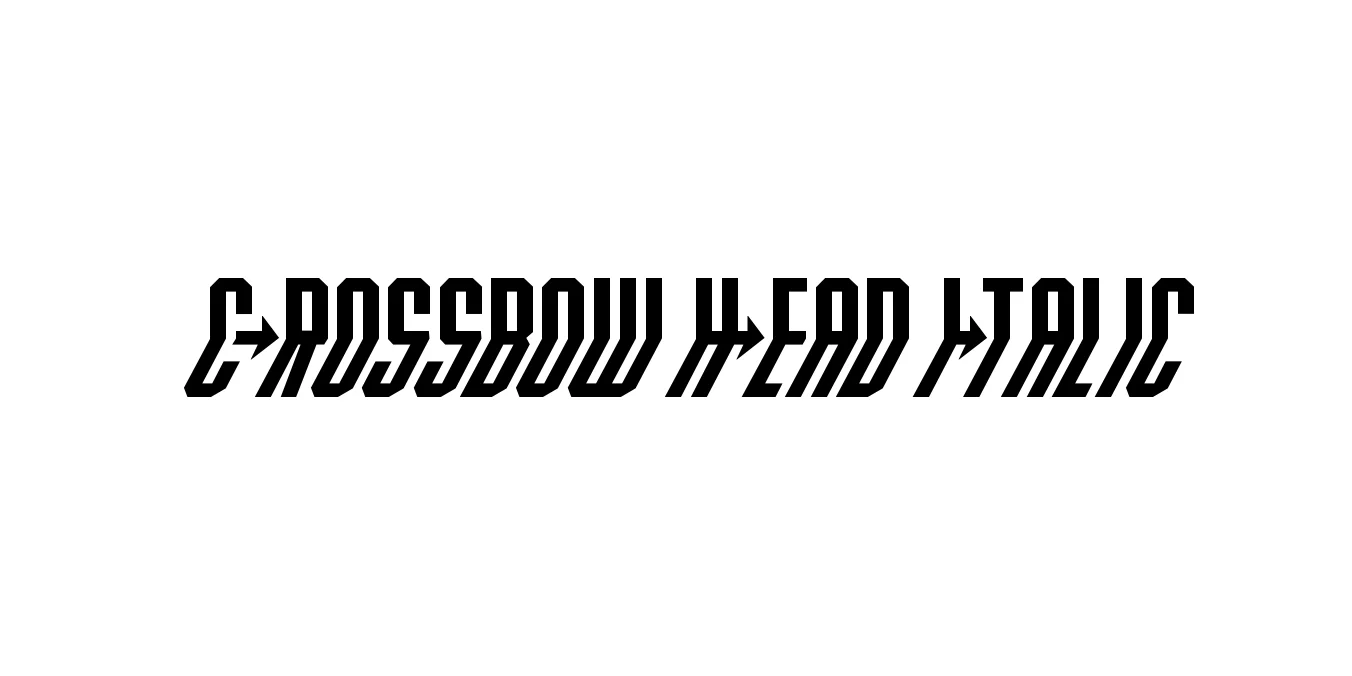
Crossbow Head Italic
Designed by Dan Zadorozny
| Category | Techno / Display |
| Designer | Dan Zadorozny |
Crossbow Head Italic is a high-octane, futuristic display typeface designed by Dan Zadorozny of Iconian Fonts. This specific variant belongs to the expansive Crossbow family, which is renowned for its techno-industrial aesthetics and sharp, geometric constructions. The 'Head Italic' style emphasizes a heavy, forward-leaning posture that communicates speed, momentum, and advanced mechanical engineering, making it a staple for designers working within the sci-fi and action genres.
The font features thick, blocky letterforms with distinct angular cutouts and elongated horizontal strokes, reflecting a high-tech visual language. Its italicized nature adds a layer of kinetic energy that is particularly effective for large-scale headers where impact and legibility are paramount. Whether used in digital interfaces or printed promotional materials, Crossbow Head Italic provides a bold, authoritative presence that defines modern display typography.
Crossbow Head Italic Best Uses
Ideal for title screens, HUD interfaces, and competitive e-sports logos.
Excellent for science fiction or action thriller film branding and promotional graphics.
Perfect for high-performance athletic wear and energetic team identity designs.
Great for high-impact hero sections and tech-related blog headers.